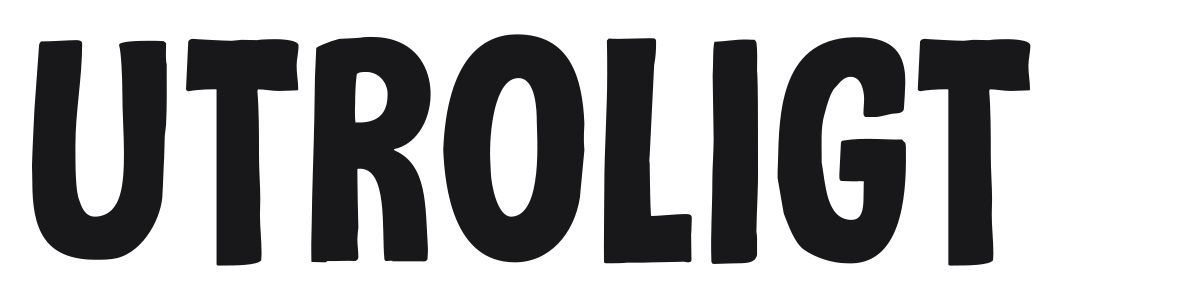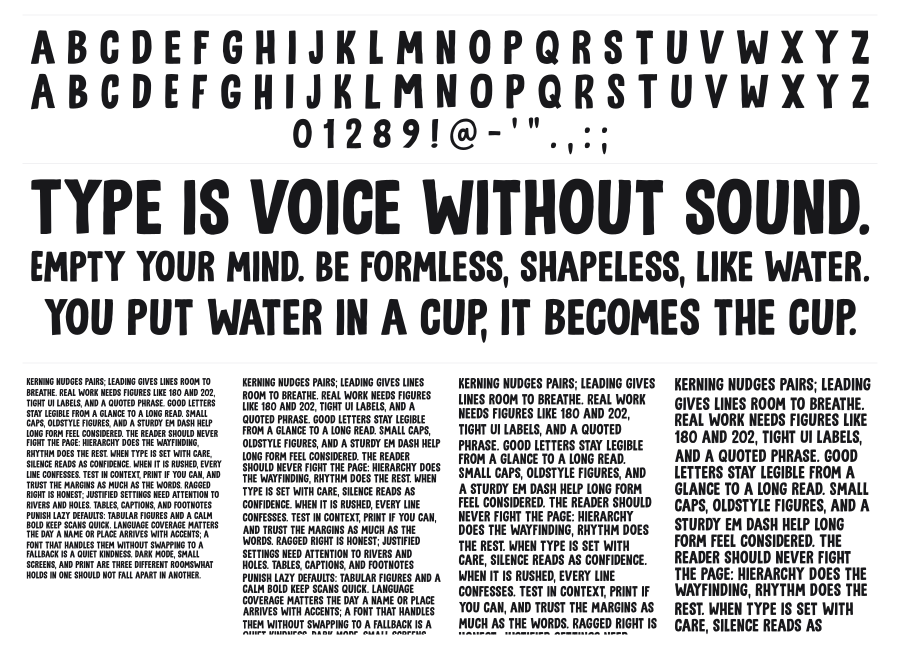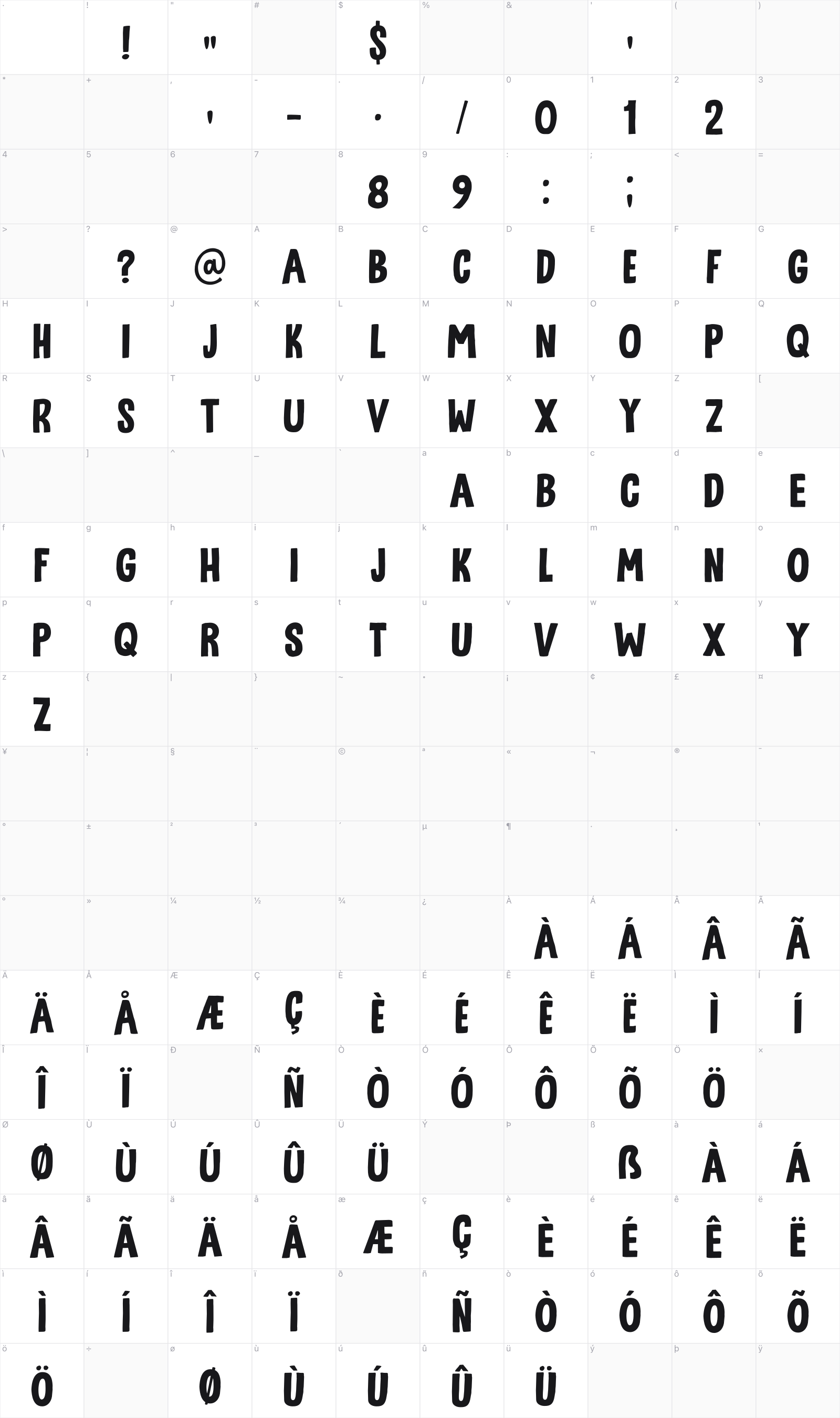
Utroligt
Utroligt is a bold condensed sans with a hand-crafted, slightly irregular quality that keeps it from feeling stiff or mechanical. The heavy strokes and rounded terminals give it real warmth at large sizes, sitting somewhere between a vintage poster typeface and a comic book title. It brings personality without tipping into novelty.